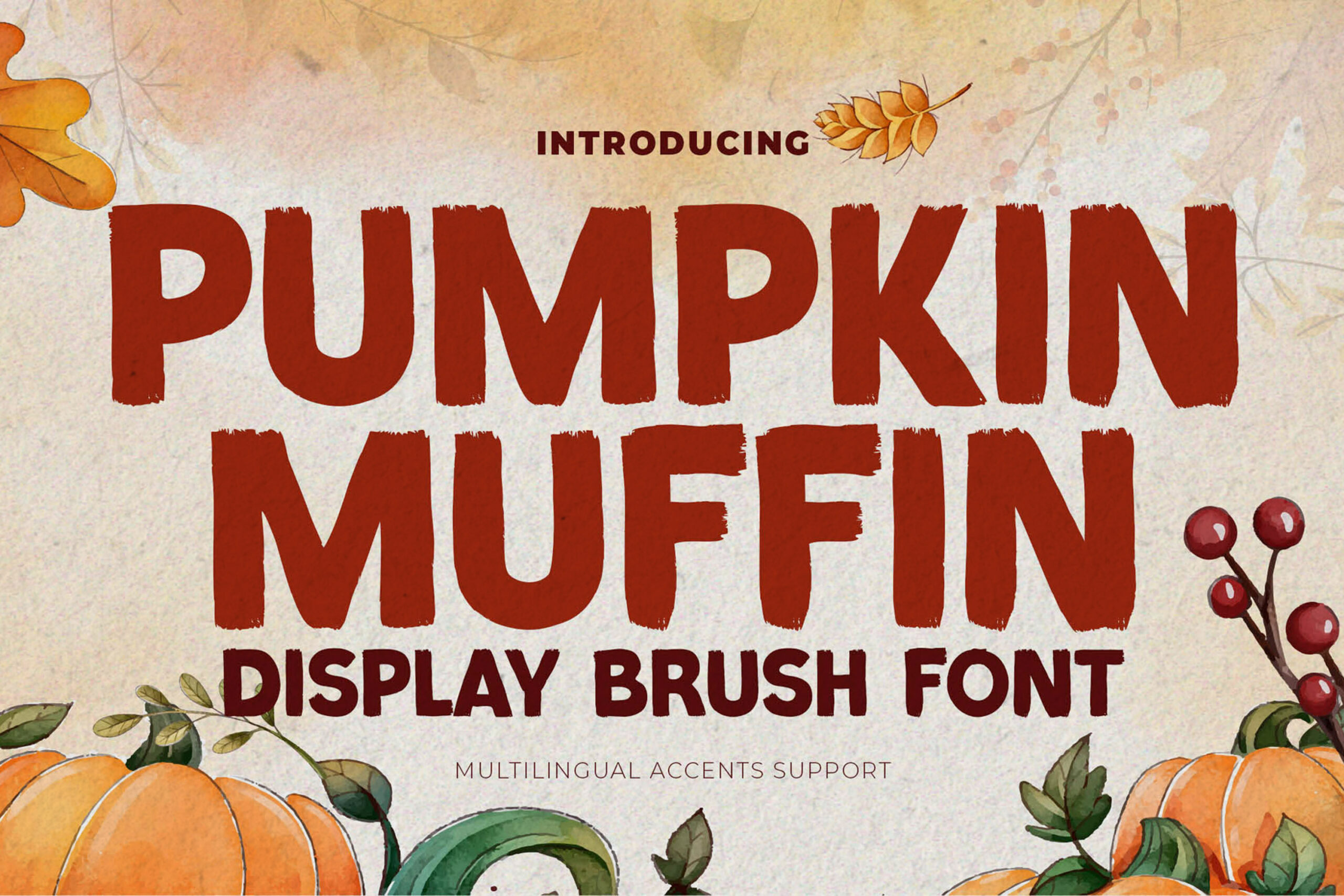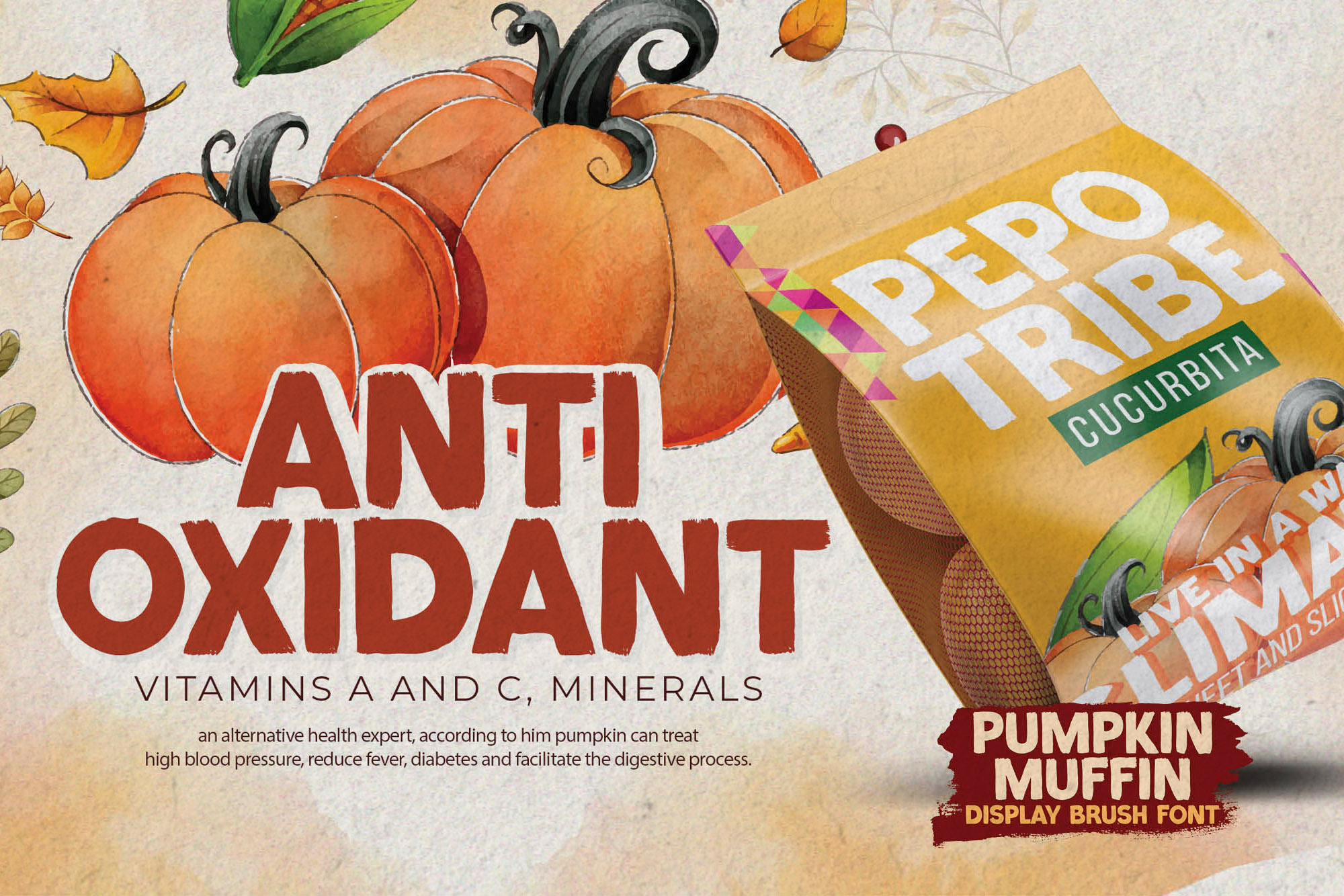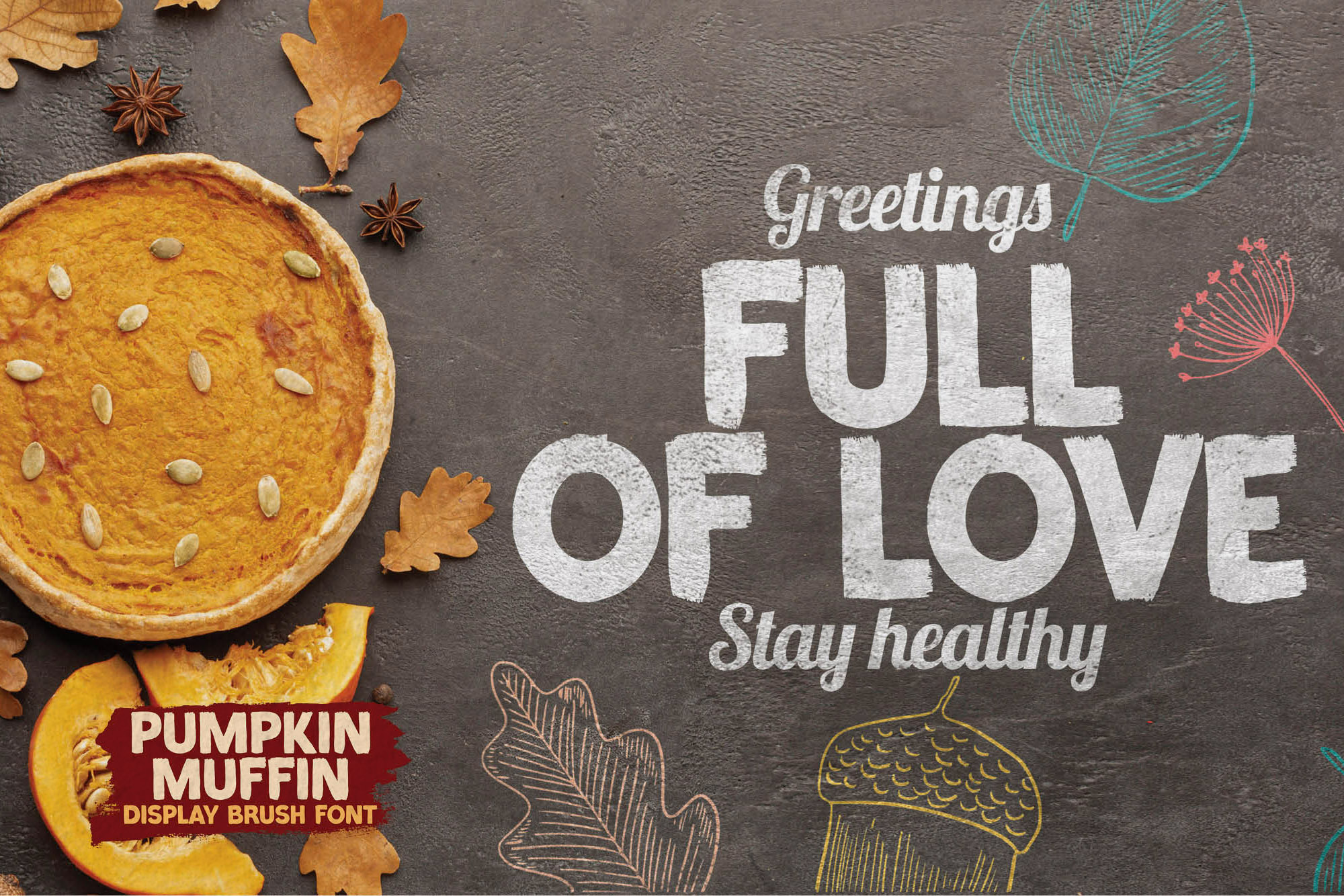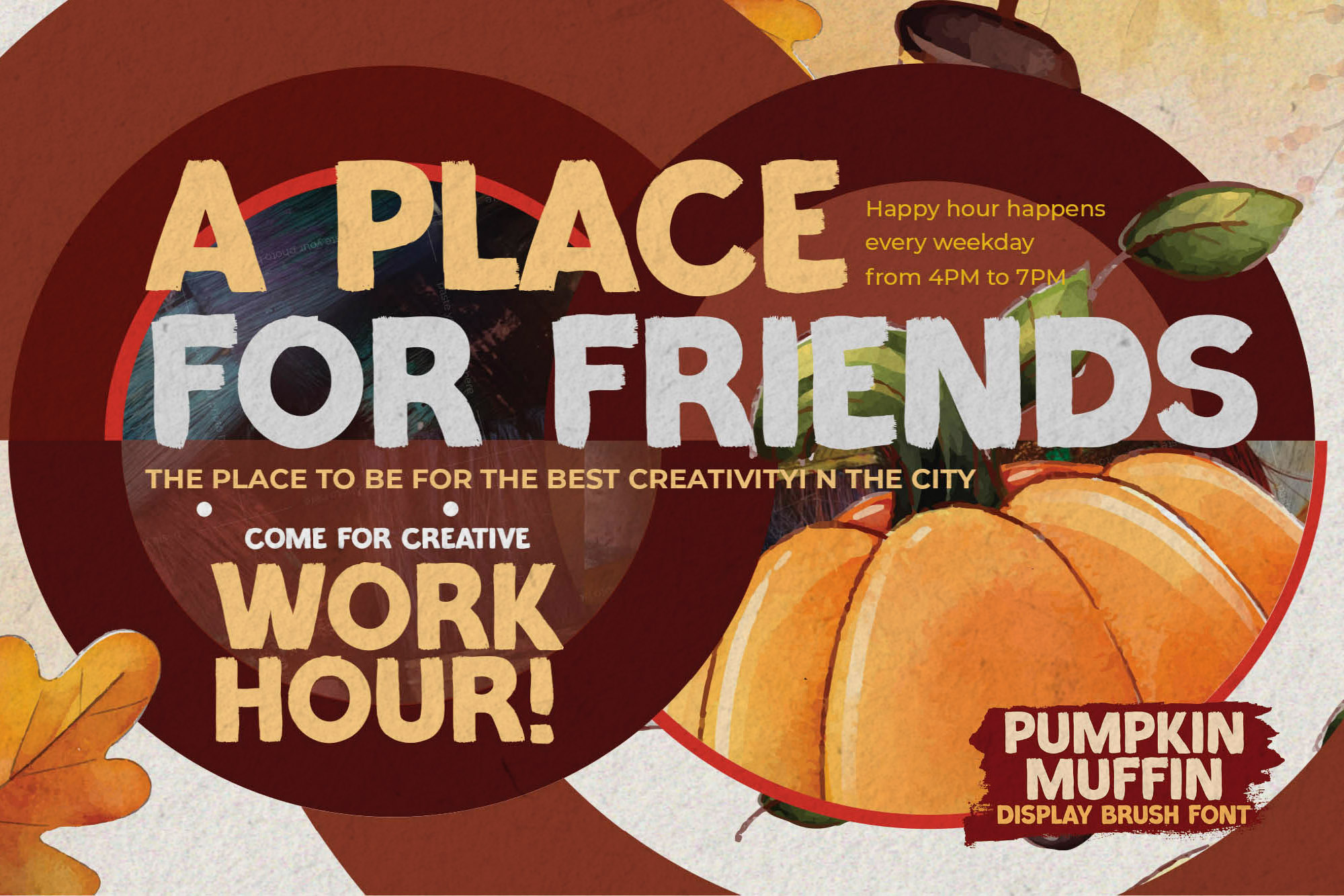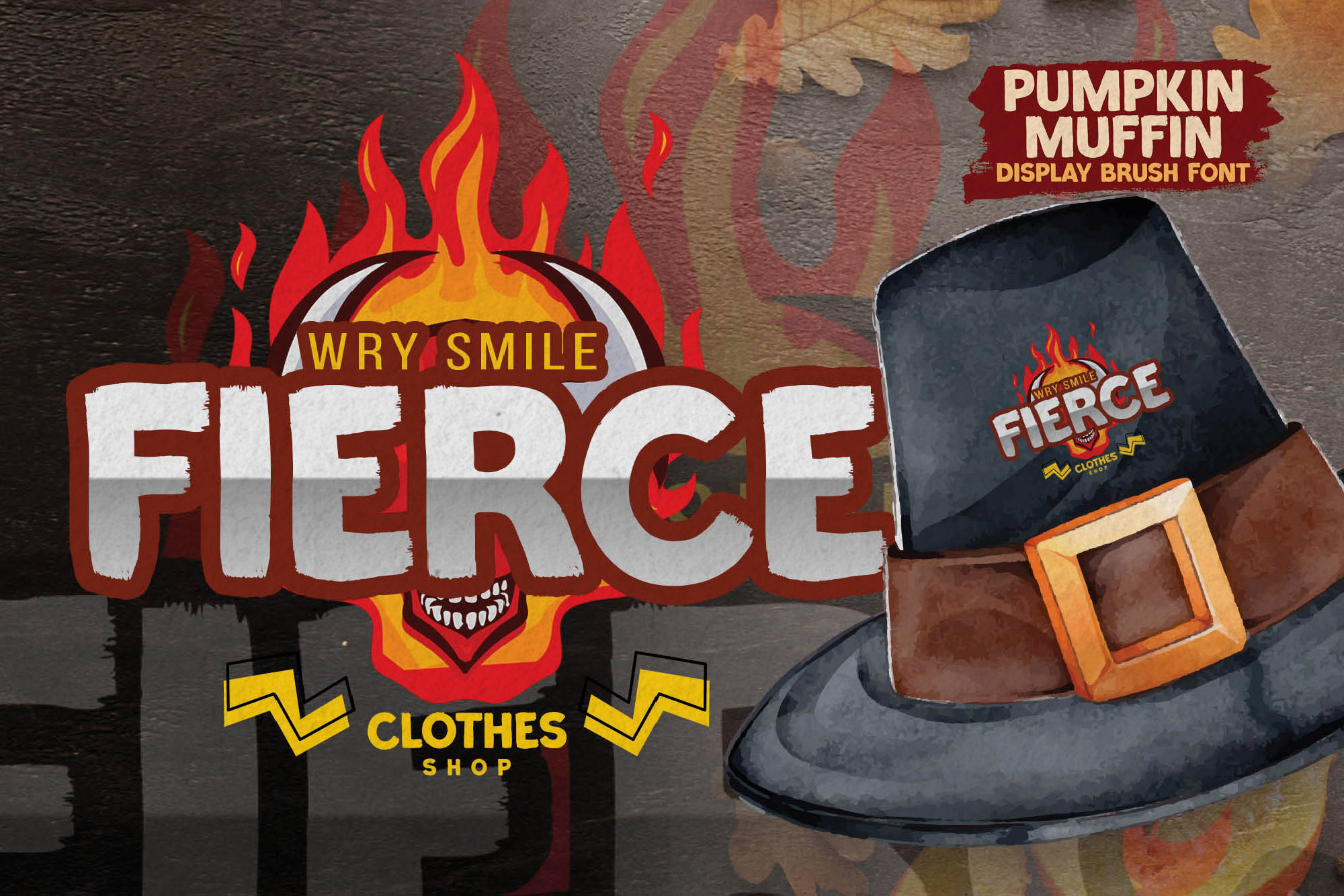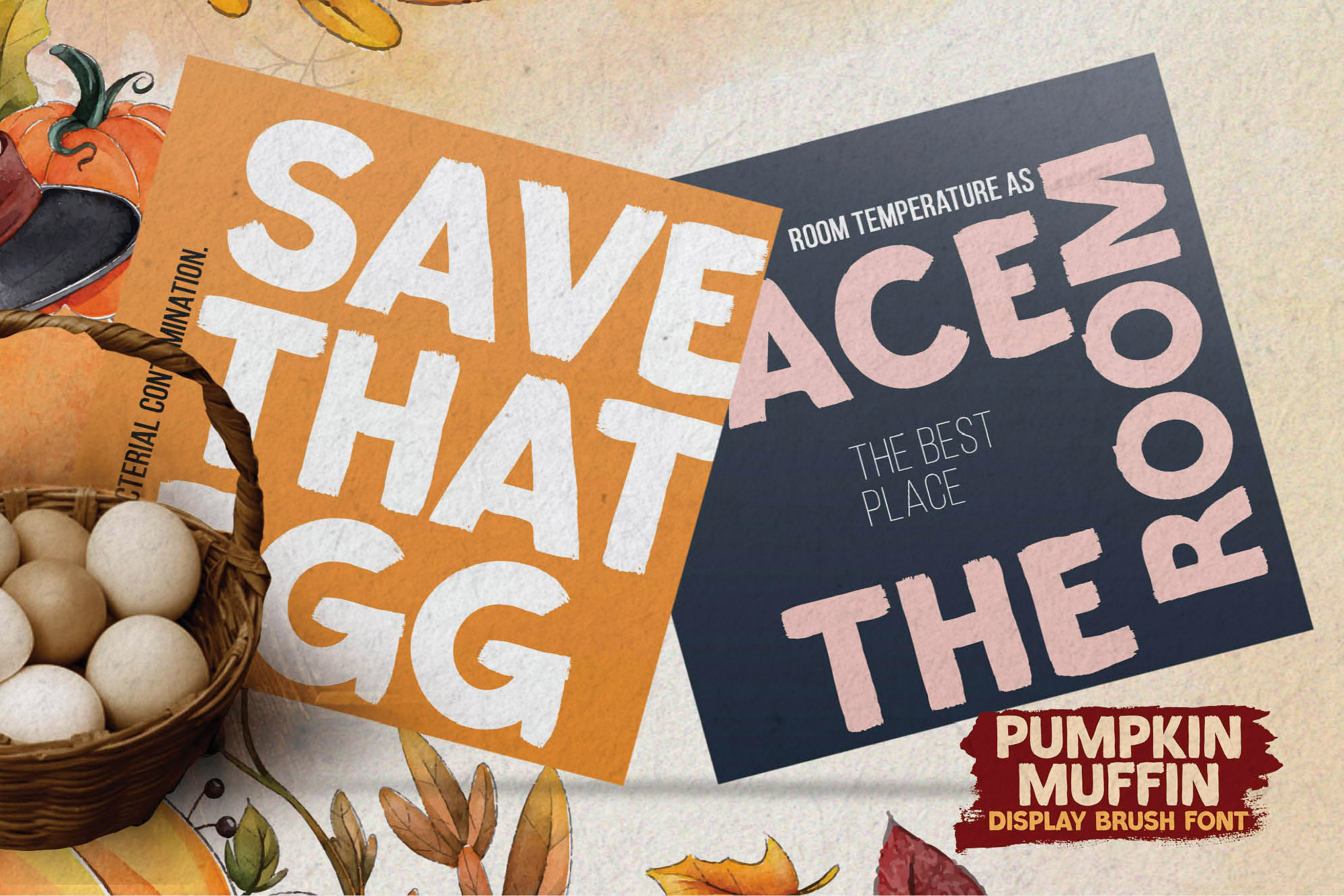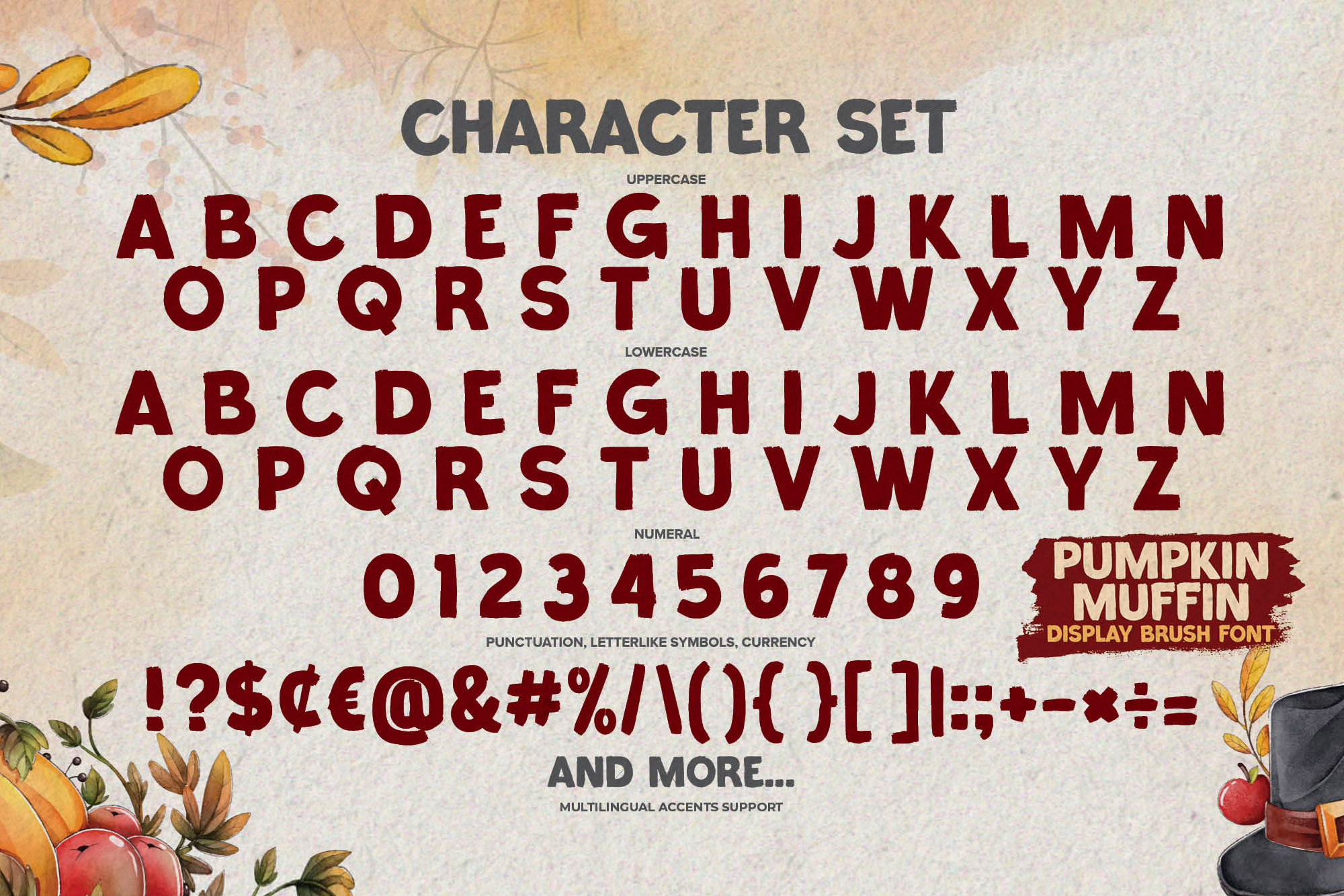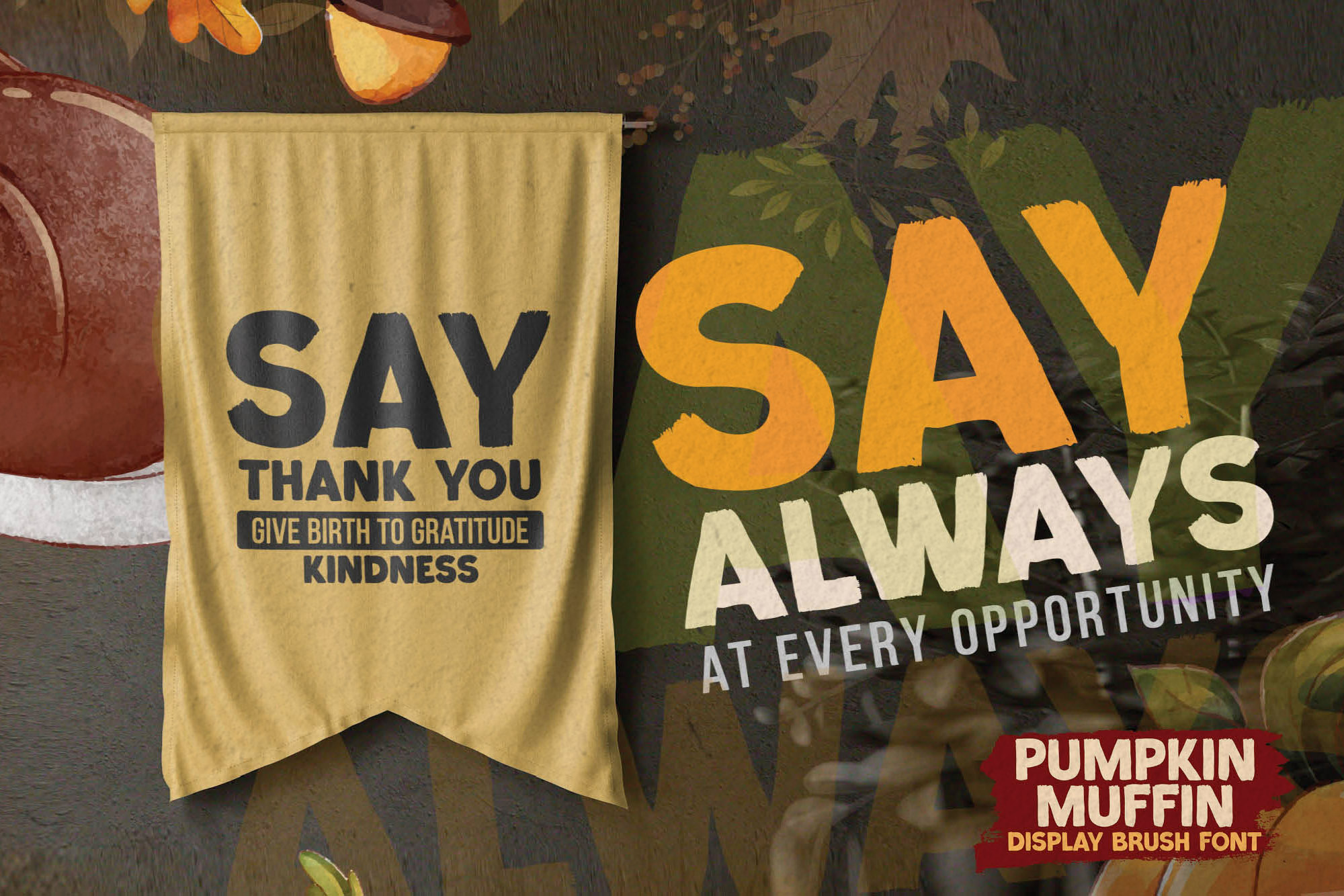
Pumpkin Muffin – Display Brush Font, modern style and dramatic movement that is written casually and quickly.
The best for labels,poster,project , designs look modern, authentic and fun. It’s perfect for labels, quotes, posters, DIY projects, branding, packaging, greeting cards, websites, photography overlays, signs, scrapbooking, tags and so much more! That is why Pumpkin Muffin has a textured, and strong characteristic more natural look.